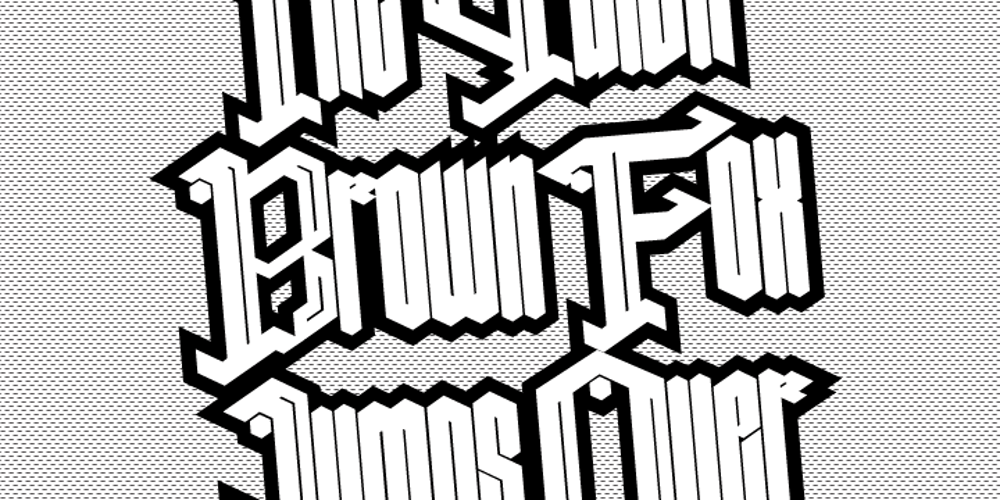
Vestigia Font Family was designed by published by Rodrigo Navarro Bolado. Vestigia contains 1 styles and family package options. Vestigio m. Ing. & Fr. vestige: a trace, mark or visible sign left by something as an ancient city in a condition or practice vanished or lost. Vestigia is born by lost pieces of other typography, being then, Garbancera’s descendant. It evolved to be seen in big point sizes and compete with other fierce competitors, while retaining some features of it ancient predecessor, navigates a gothic fraktur experimental style, existing between legible and illegible reading.